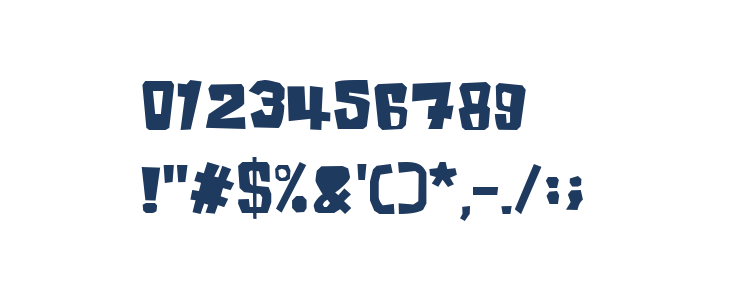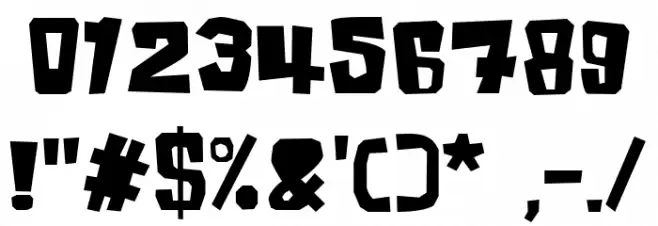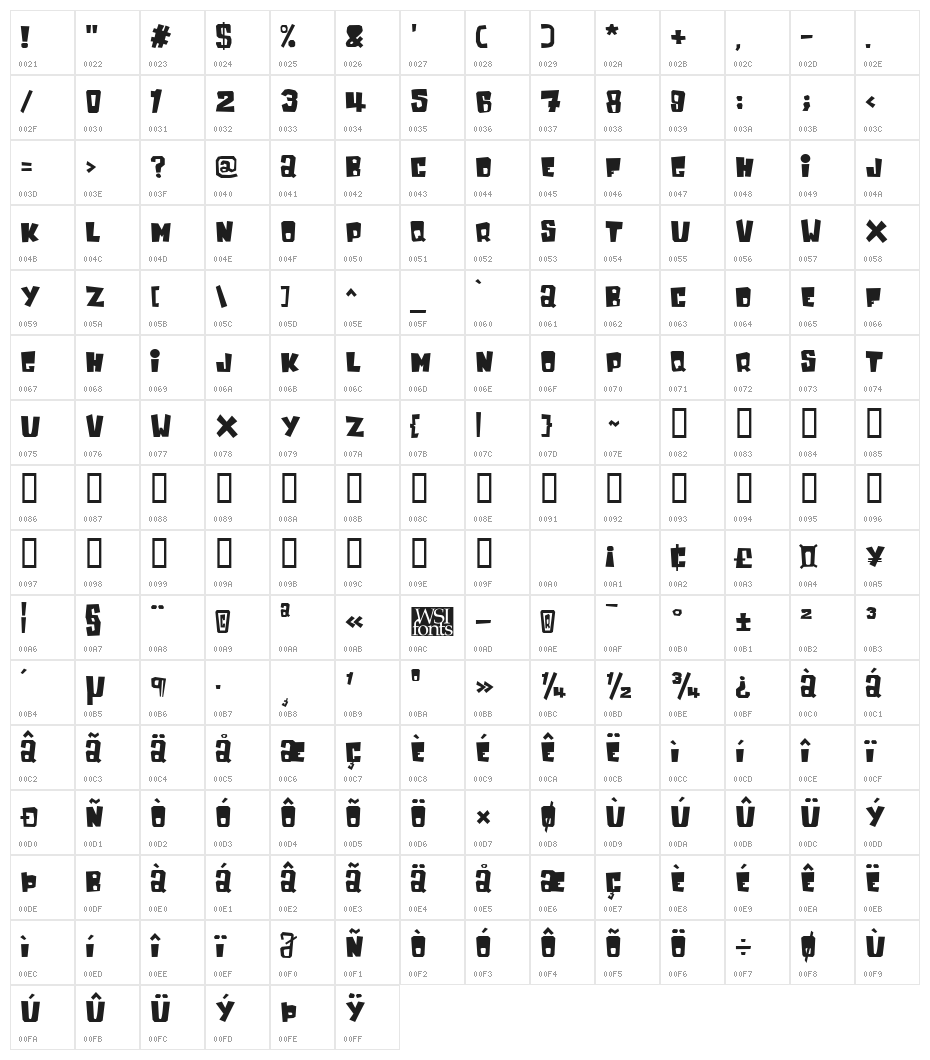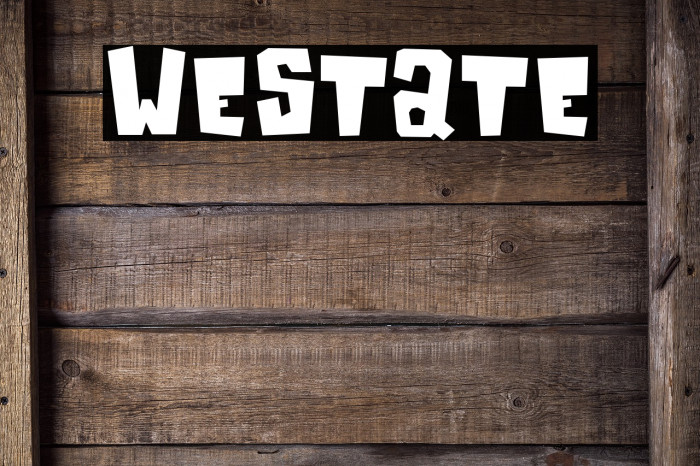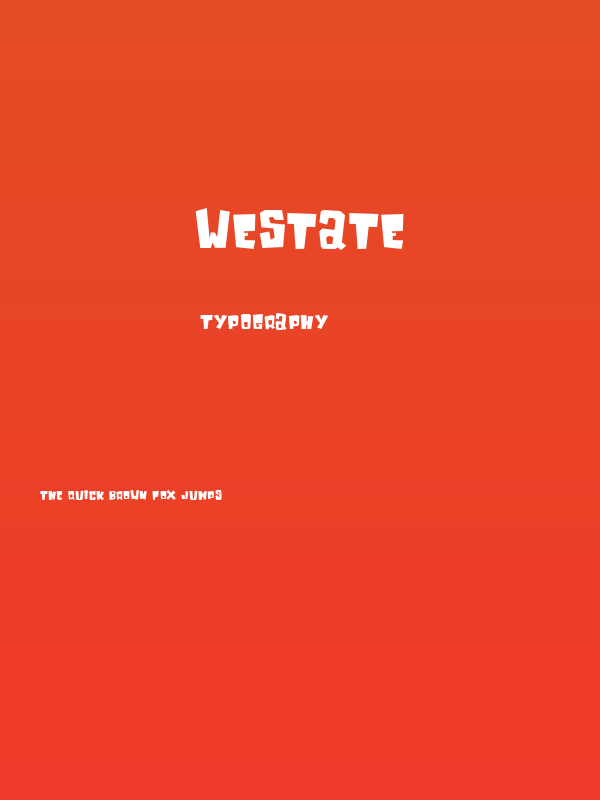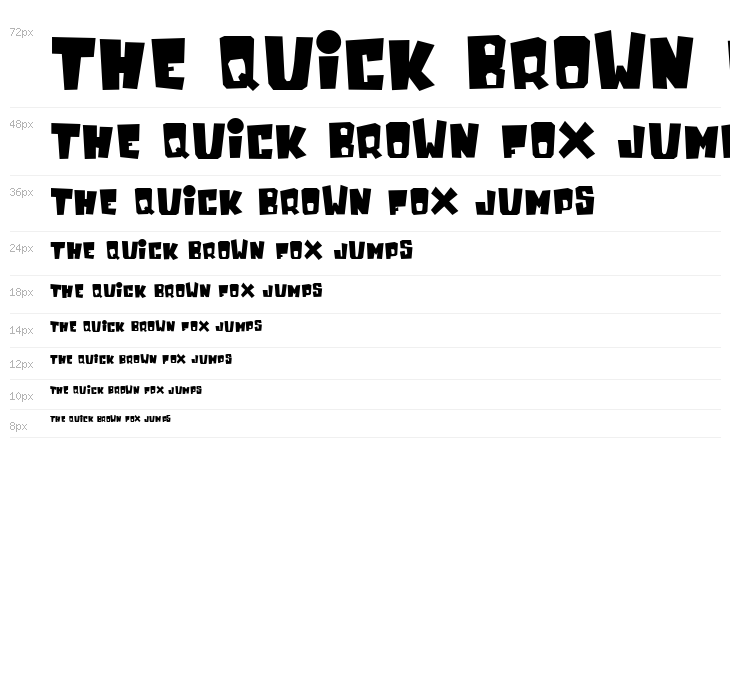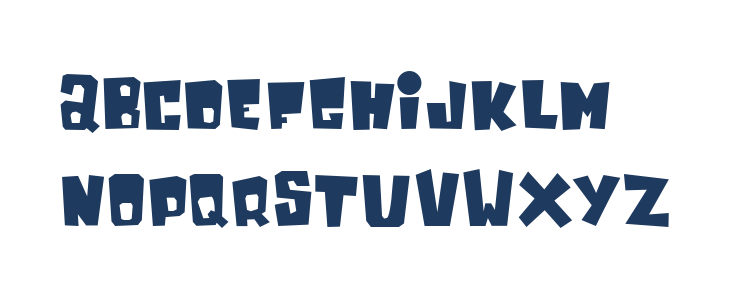
Westate Font
Westate Description
This font features a bold and playful design with a distinctly irregular and chunky appearance. The characters are heavily stylized with uneven edges and varying thickness, giving it a hand-cut, almost collage-like aesthetic. The uppercase and lowercase letters maintain a consistent style, with exaggerated angles and a sense of movement. Numbers and special characters follow the same design principles, ensuring a cohesive look across all glyphs. This font's unique style makes it stand out, perfect for projects that require a bold and unconventional typeface.
A bold, playful font with irregular, chunky characters and a hand-cut appearance from Uncategorized fonts.
- Proposed Projects: Ideal for posters, album covers, children's books, and any creative projects needing a bold statement.